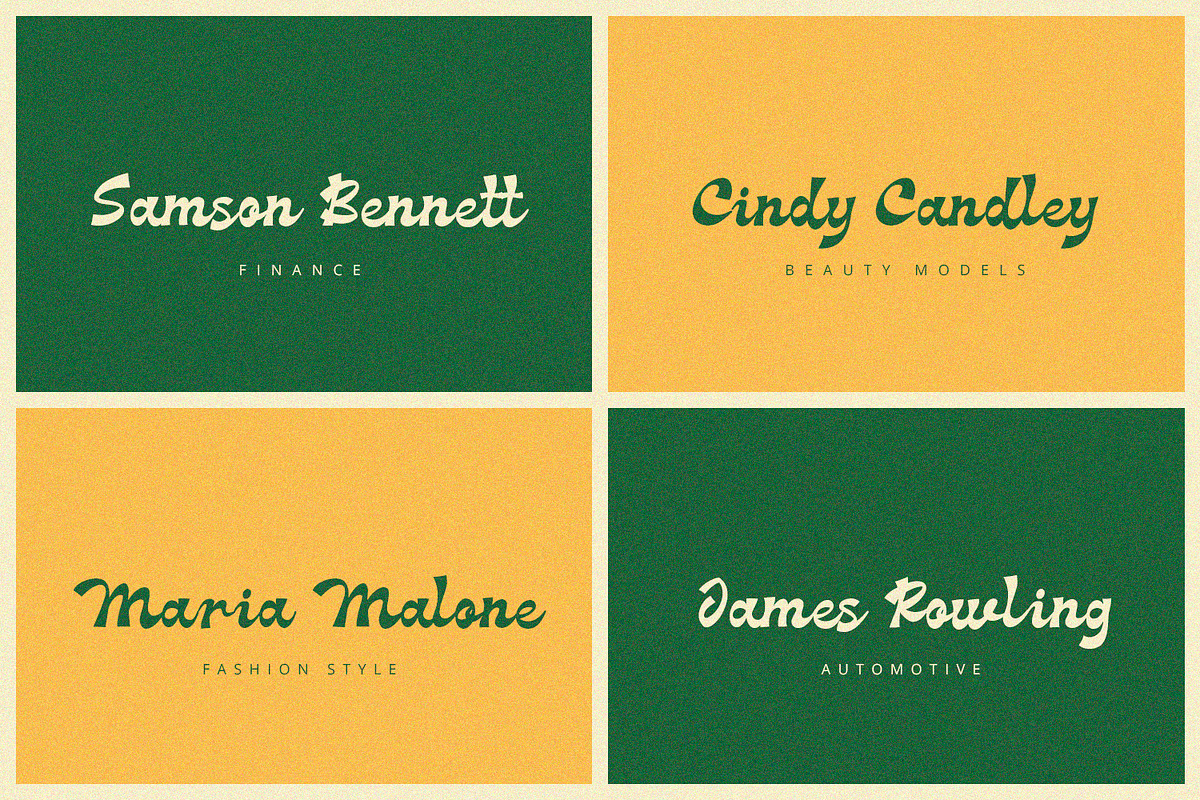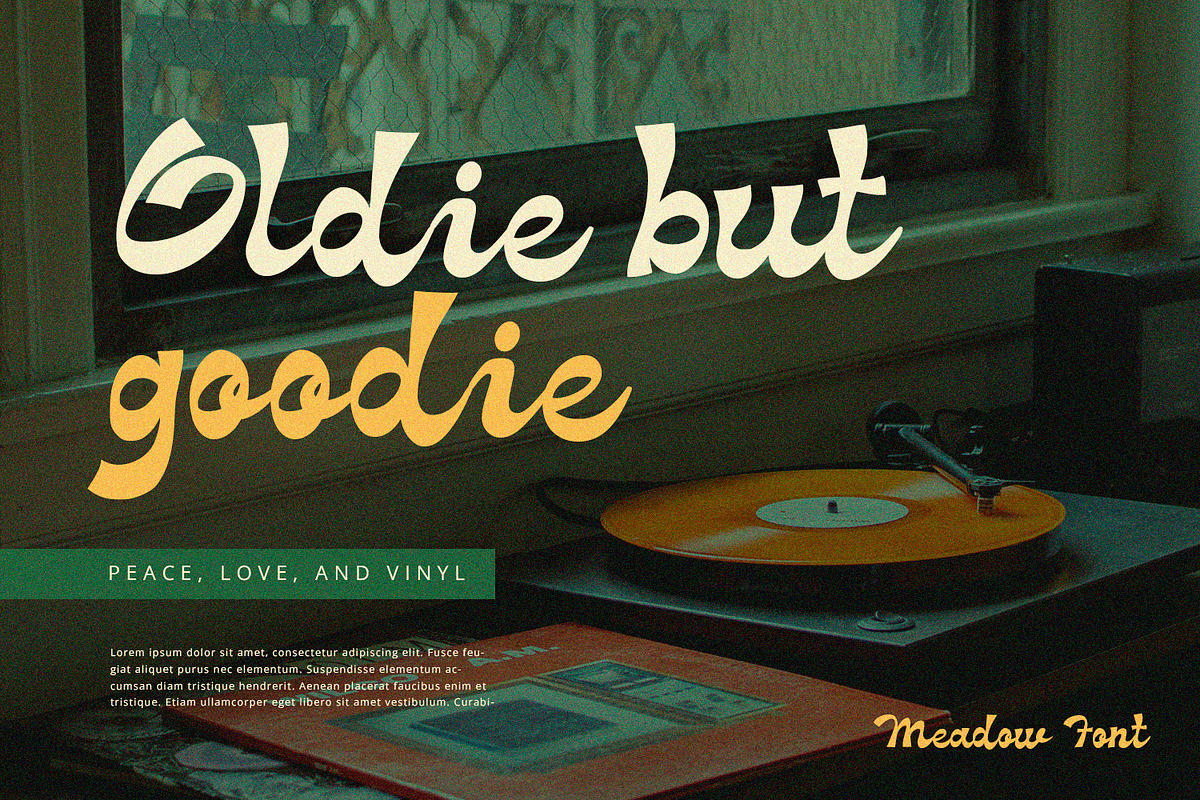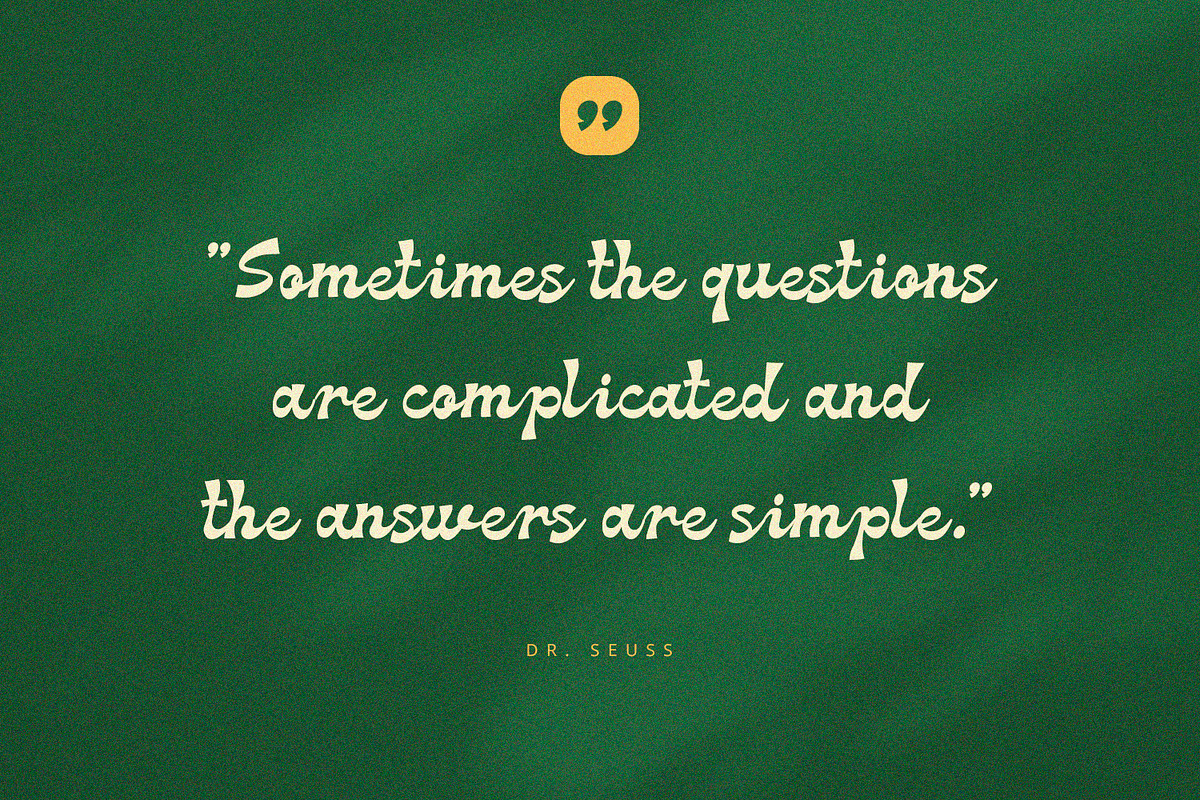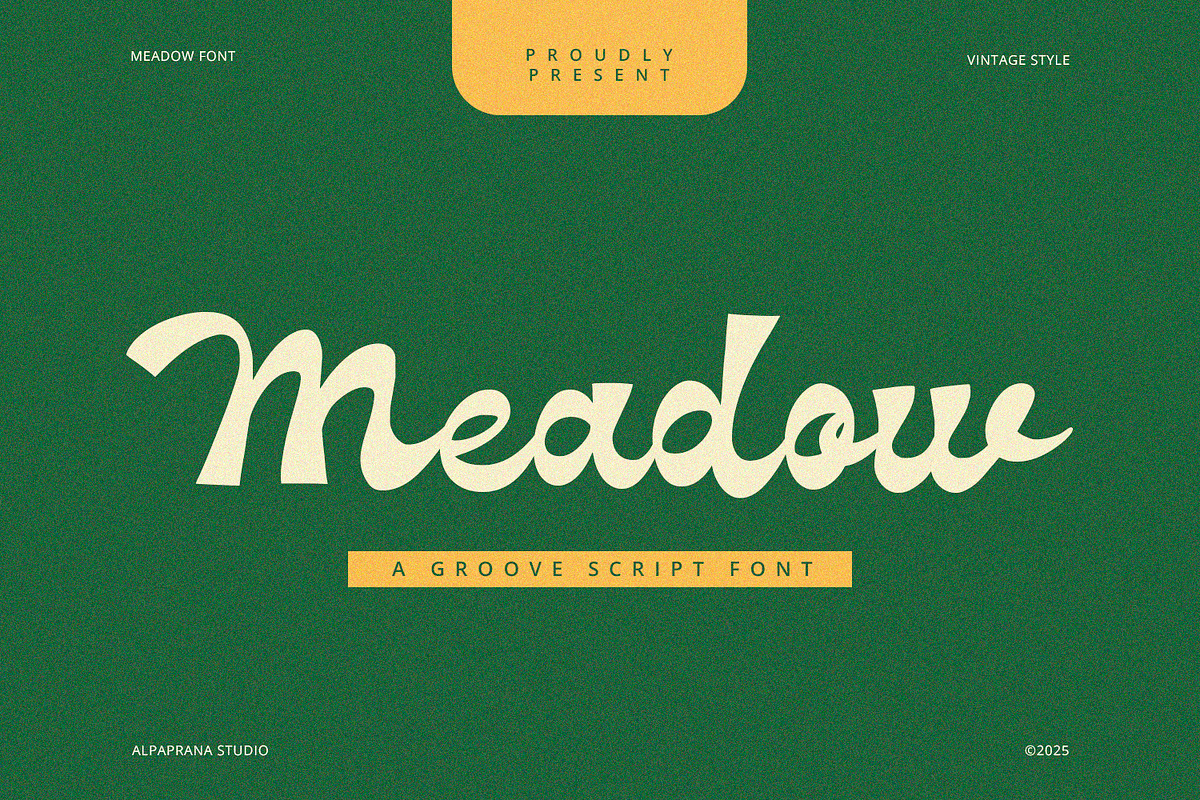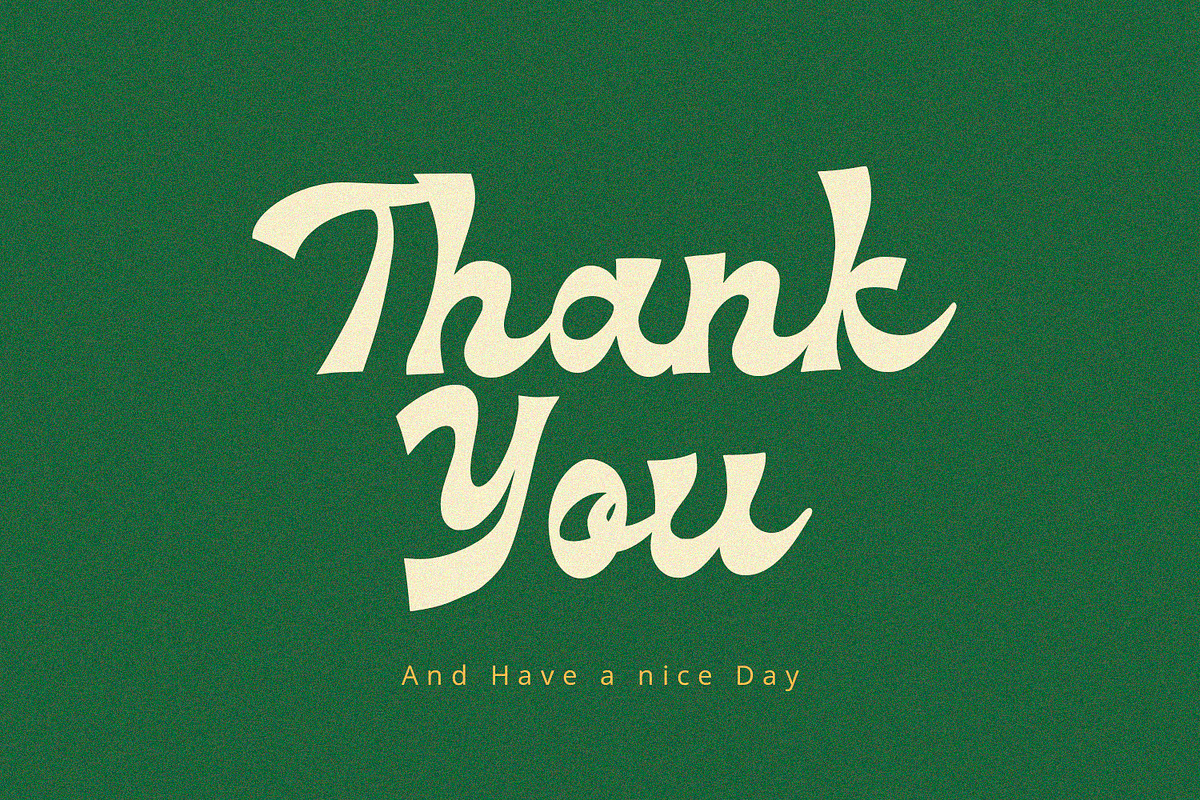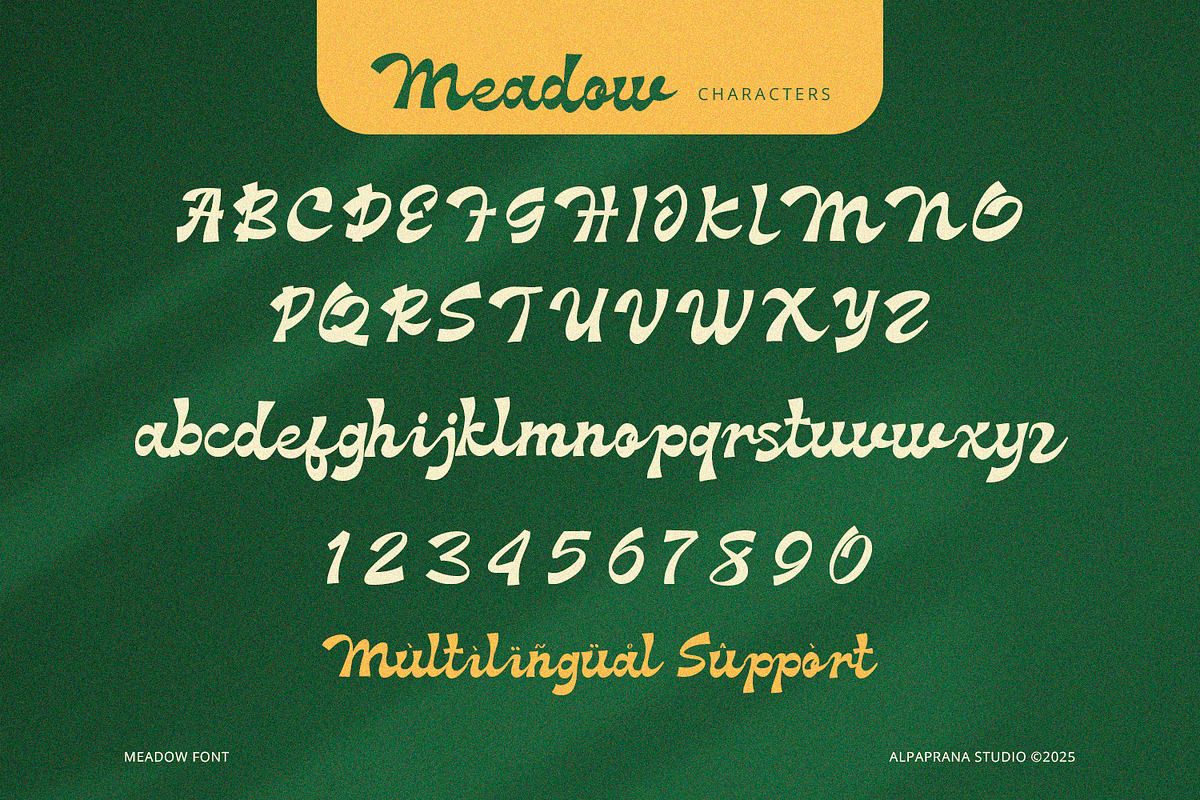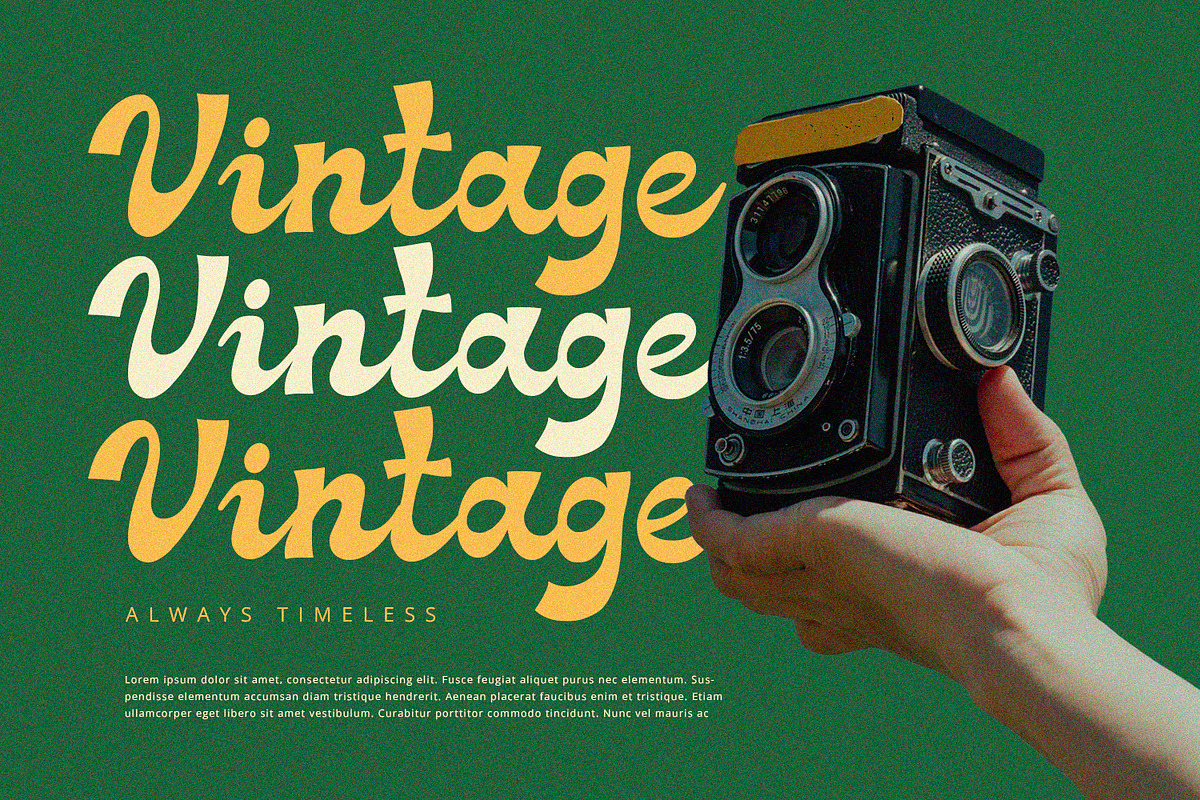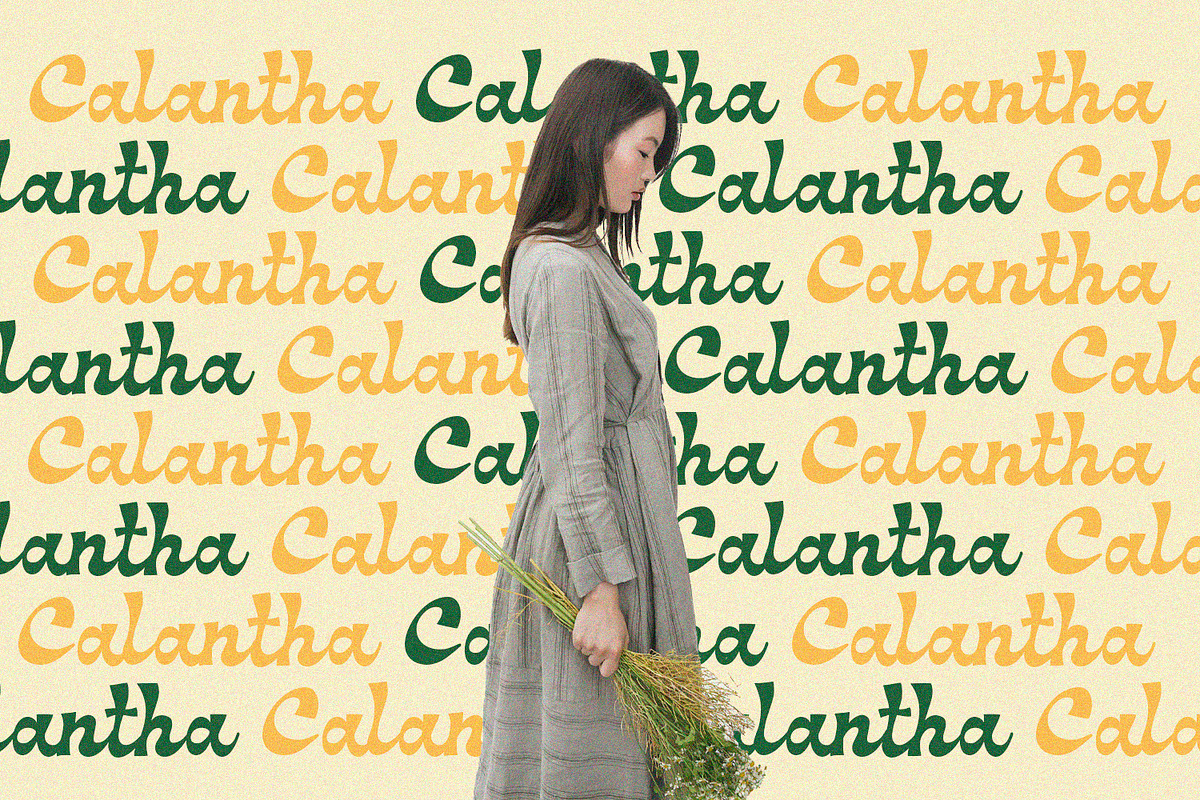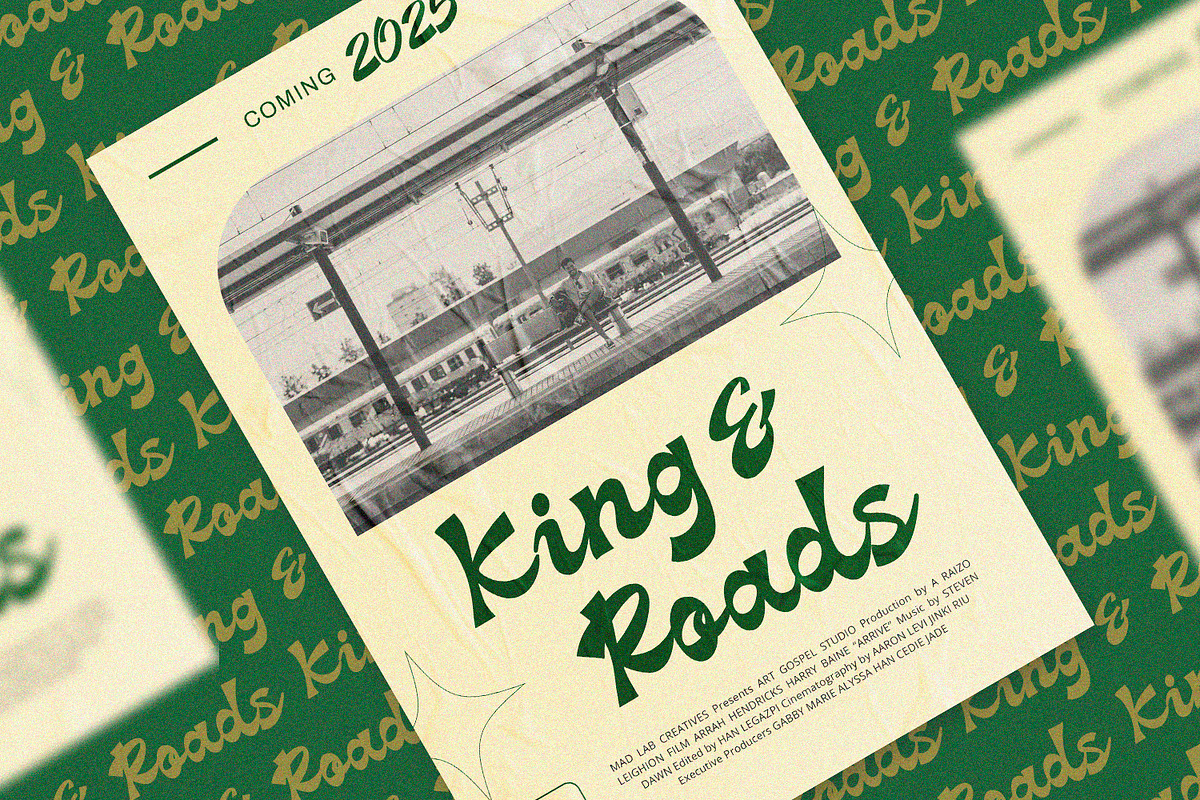
Meadow - Groove Script Font
Meadow is a groove script font with bold and classic feels. It will be perfectly used for Branding, Logo Design, Lettering, Logotype, Clothing, Poster, magazine, packaging, posters, shopping bags, t-shirts, book covers, photography, special events and other design project.